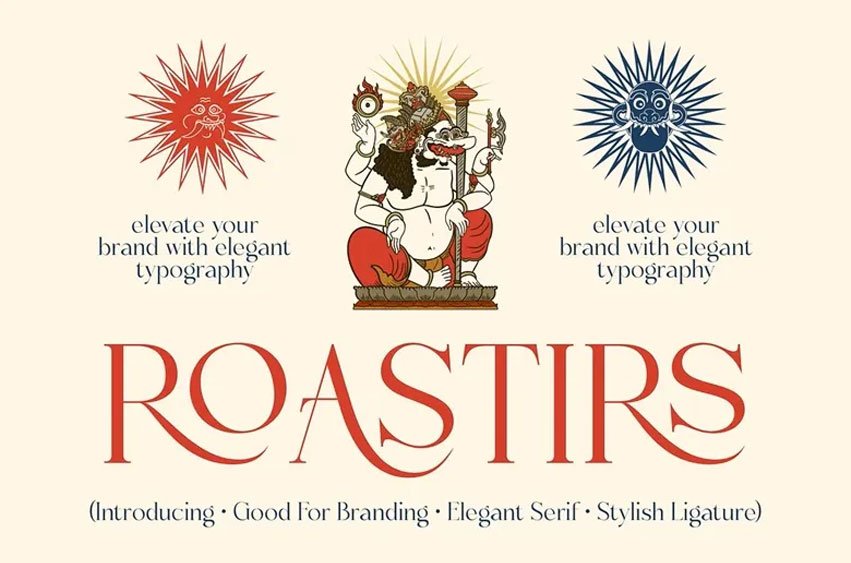
Roastirs Font is an elegant serif font that is created to make a statement. This beautifully designed font is used to make each character look of high-end luxury and therefore, your designs look stunningly graceful without any hassle. Inspired by the combination of classical Roman proportions and modern high-fashion style, the mood of this font is that of the sophisticated heritage.
The elaborate aspects and cultural patterns incorporated in the presentation are indicative of a profound sense of artisanal craftsmanship and narrative images. This general-purpose typeface is the one-stop-solution in the logo design and branding overall projects which need a bit of fancy.
It can fit the high-end editorial layouts, as well as the high-end packaging, along with elaborate wedding invitations and fashion look books, but it fits very well in high-end settings.